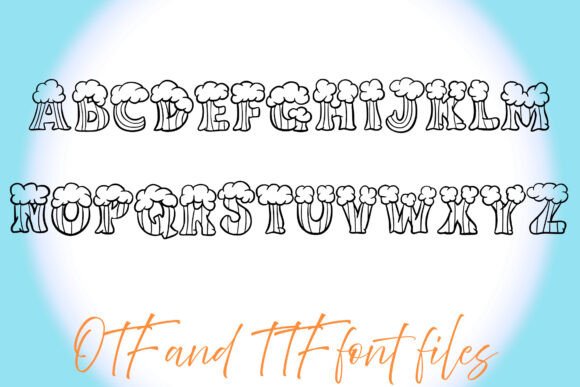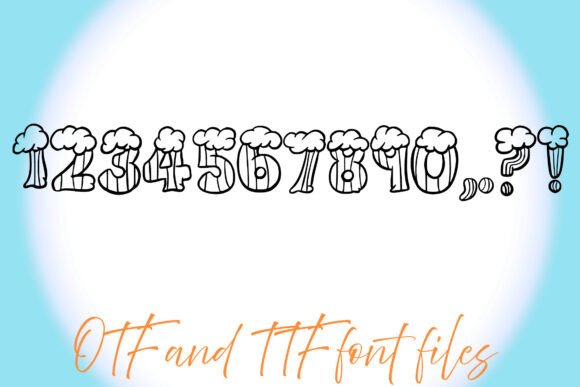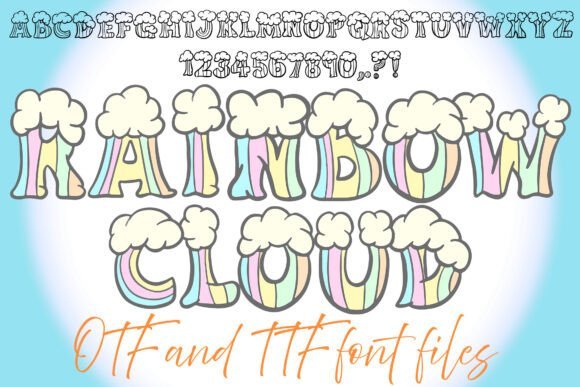
Introduction to Rainbow Cloud Font
Rainbow Cloud Font is a dreamy, pastel-colored display typeface where every letter is wrapped in clouds and filled with soft rainbow stripes.
This whimsical font is perfect for children’s books, birthday cards, nursery decor, or any cute and colorful design that wants to float on happy vibes .
Key Features of Rainbow Cloud Font
Why Choose Rainbow Cloud Font?